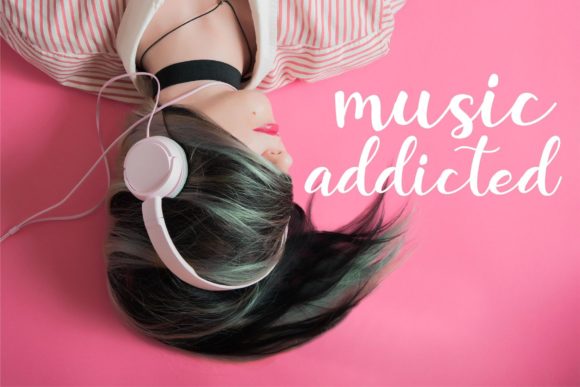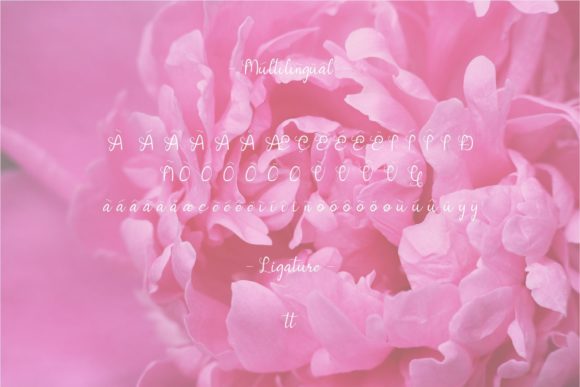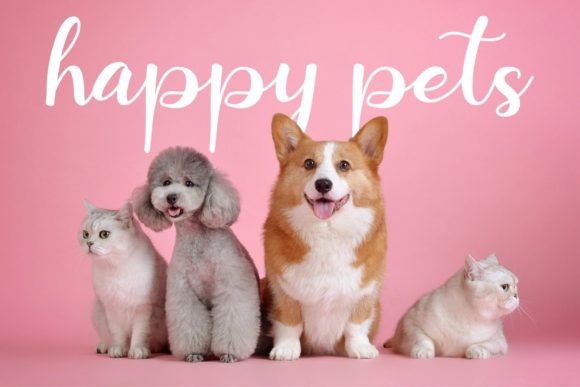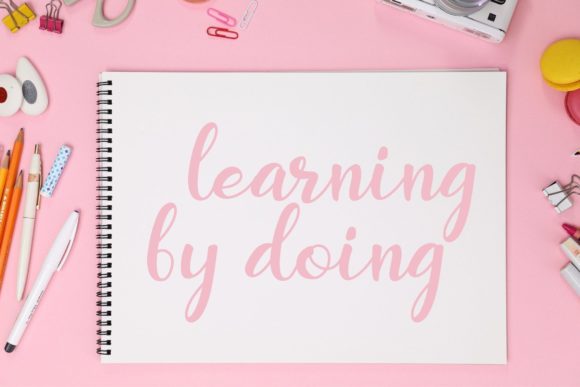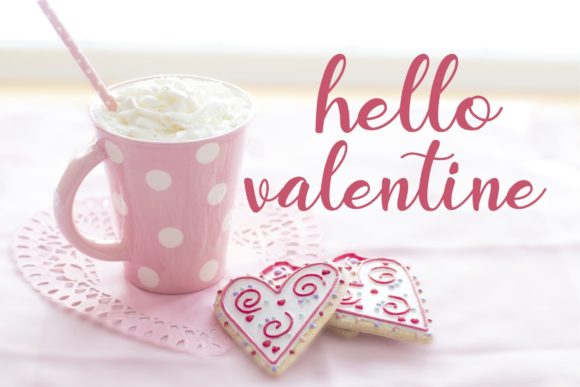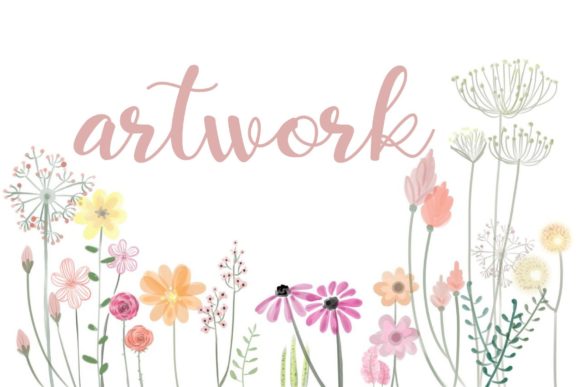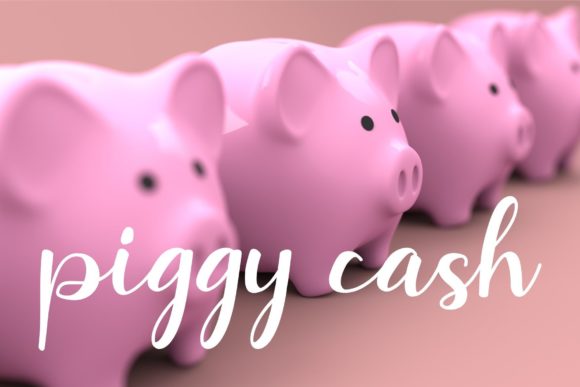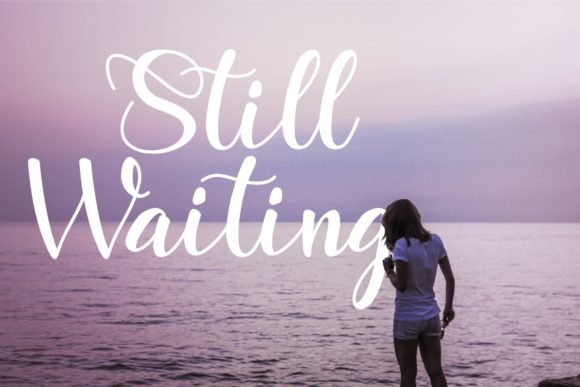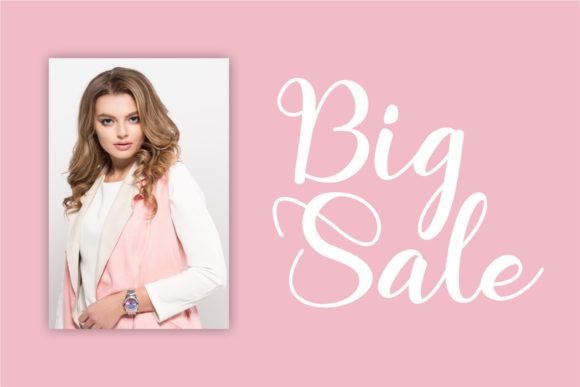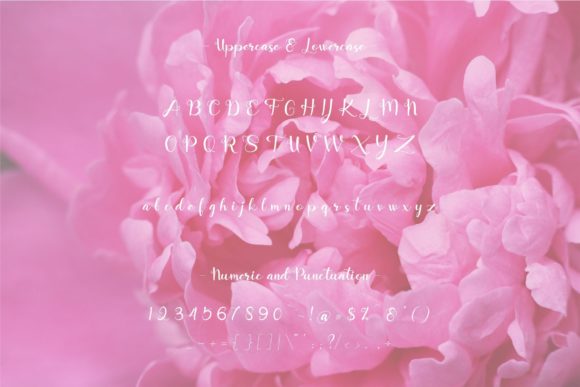
Romance Font
About Romance Font
Romance is a sweet, whimsical and round lettered script font. Featuring characters that dance along the baseline, this font will add a luxury spark to any design project that you wish to create!